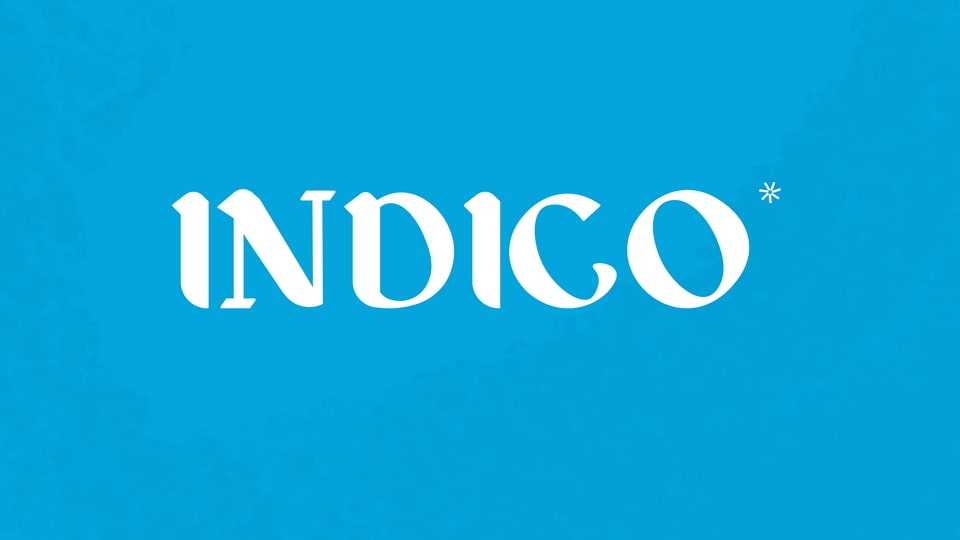
Download Indico font, a typeface that seamlessly blends the mysterious elegance of Gothic letterforms with the timeless sophistication of Antiqua design. Indico font pays homage to the rich history of medieval manuscripts, encapsulating the spirit of Gothic calligraphy in a contemporary and versatile form.
Designer: Teodora Todorović